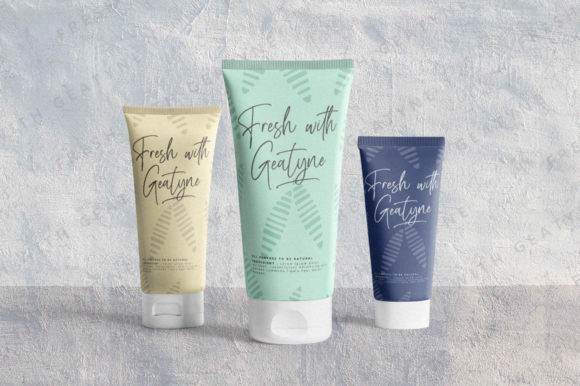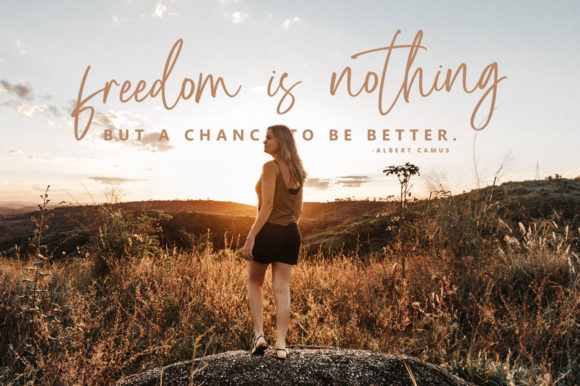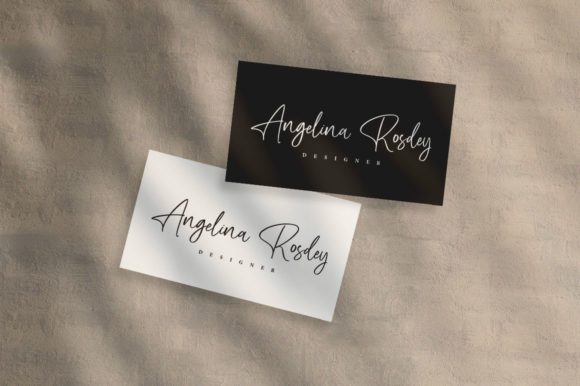
Dioksiany Font
About Dioksiany Font
Dioksiany feels equally charming and elegant. Whether you’re looking for fonts for Instagram or calligraphy scripts for DIY projects, this handwritten font will turn any creative idea into a true piece of art!